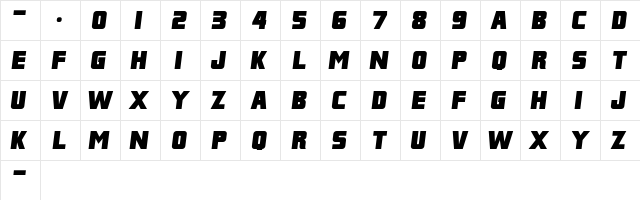
Franklin M54 Italic
Design Context for Franklin M54 Typeface
Franklin M54 offers clean, dependable letterforms without strong stylistic allegiance, making it a practical choice for designers who need flexibility. The slanted form adds forward momentum and visual energy.
Pro Tip: Try Franklin M54 for annotation and caption copy alongside an upright companion — the contrast in angle creates a dynamic but ordered typographic system.